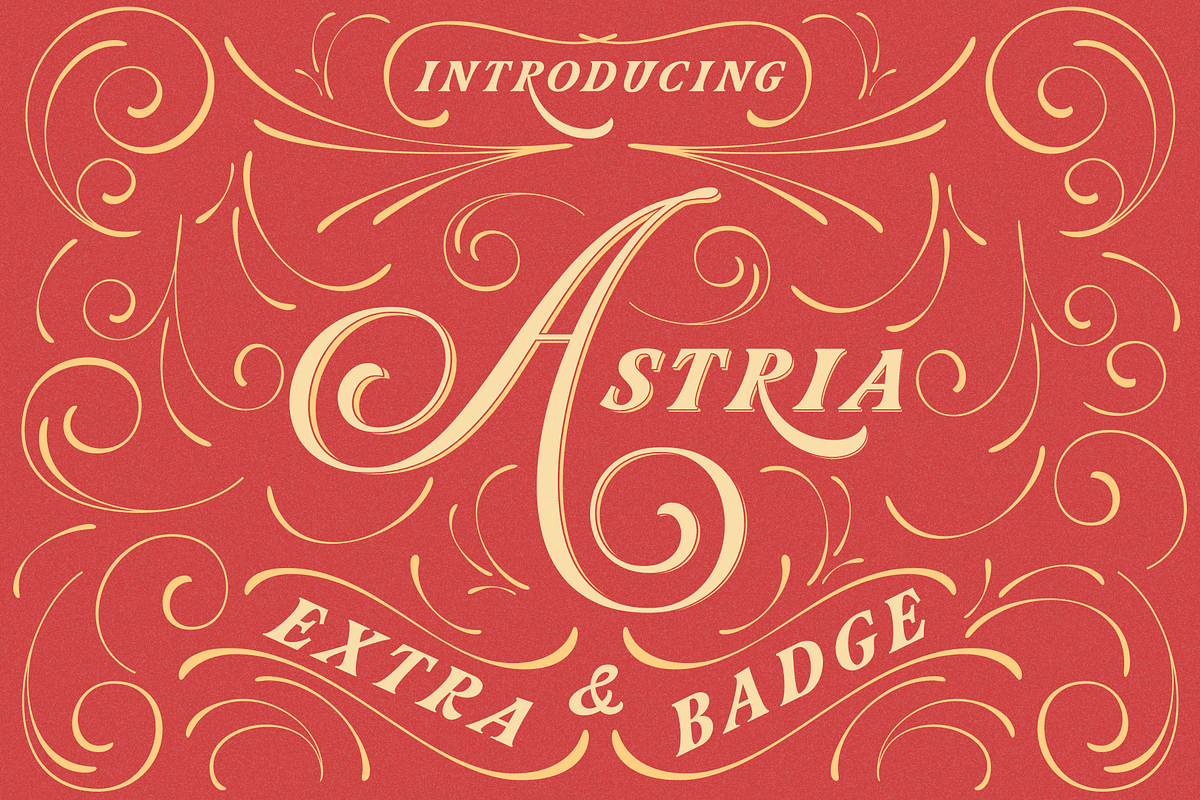
Astria – Fancy Typeface Free Download is a stylish and elegant font designed to add a touch of sophistication to your designs. Featuring intricate letterforms and decorative details, this typeface is perfect for creating luxurious logos, invitations, posters, branding materials, and social media content. Its unique, fancy design gives your projects a high-end, artistic feel, making it ideal for events, fashion brands, and creative campaigns. Whether you're working on a wedding invitation, a chic brand identity, or premium marketing materials, Astria – Fancy Typeface Free Download allows you to explore its beautiful design in personal projects before purchasing a commercial license. Elevate your designs with this beautifully crafted, fancy typeface.